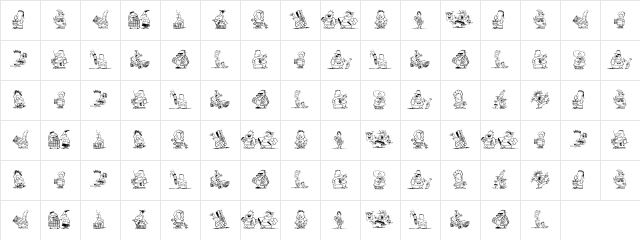
LHF WalMart People Regular Free Font
LHF WalMart People Regular
Design Context for LHF WalMart People
LHF WalMart People is a composed and adaptable typeface that performs quietly and consistently across a wide range of design contexts.